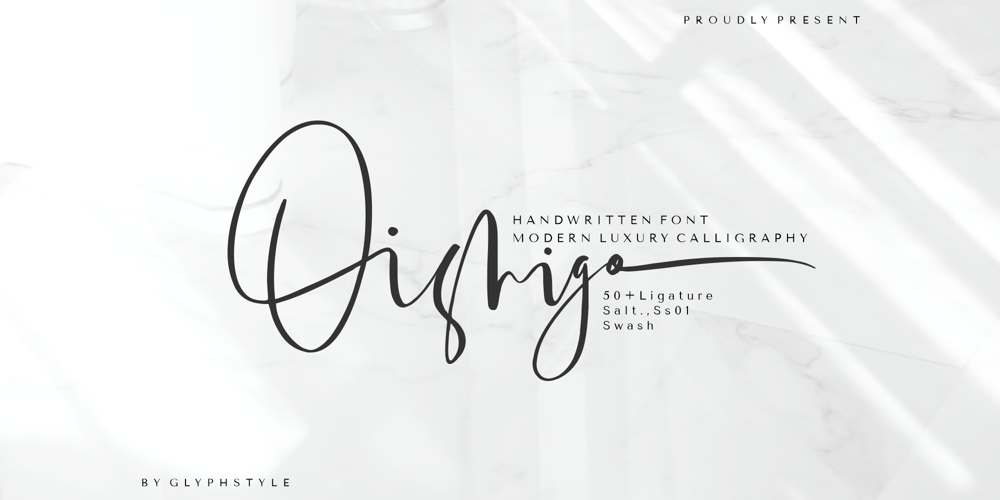
Oishigo Font Family was designed by Dimas Ardhi and published by GlyphStyle. Oishigo contains 1 styles and family package options. Oishigo is a freeform handwritten font, it has a tail that goes up and down randomly which makes this font look different and beautiful. This font has many different ligatures, more than 50 ligatures and additional alternates and swashesFont feature Uppercase, Lowercase, Numerals & Punctuations, Stylistic alternate, Ss01, Ss02 50+ igature, Swashes, Multilanguage